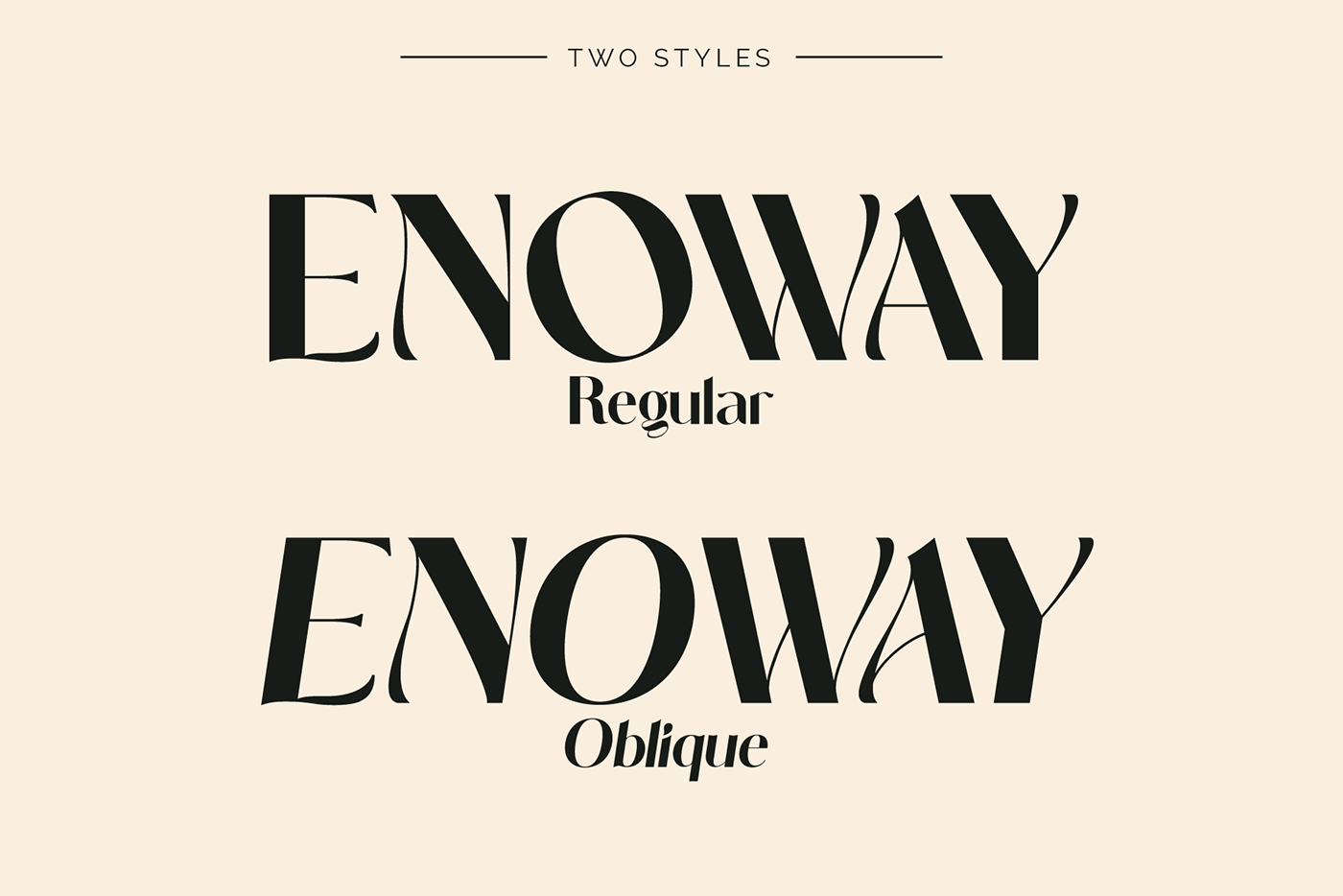
Enoway by Valentino Vergan is an elegant modern typeface, which leans towards the Neue Nouveau style. The Enoway typeface was inspired by the early Art Nouveau typographic designs, characterized by decorative designs and embellished stroke endings. The Enoway typeface has a high contrast and a thin hairline, giving the typeface a modern but nostalgic look. The Enoway typeface comes in two styles, Regular and Oblique.
The Enoway typeface can be paired with a minimal sans serif or light script font to give your next project a modern and unique look.